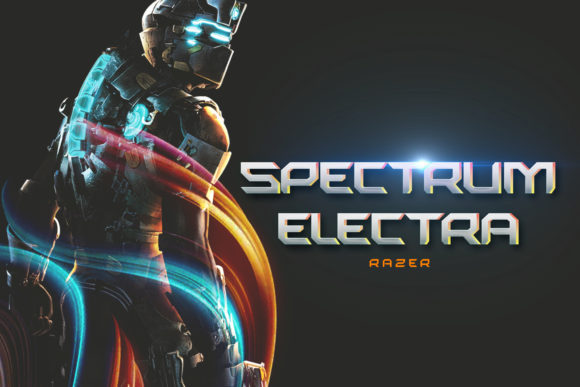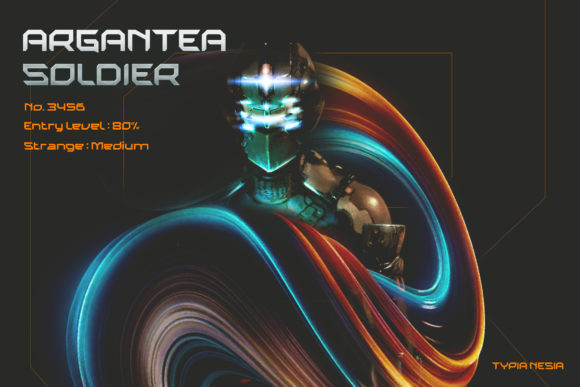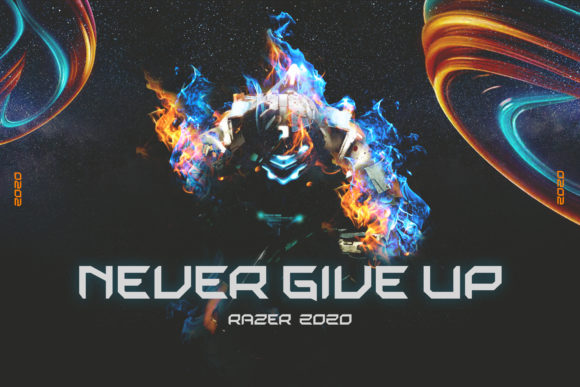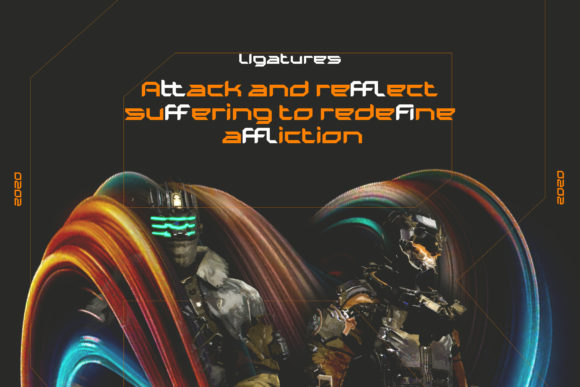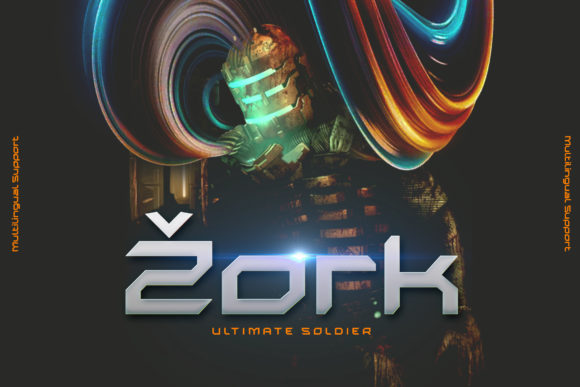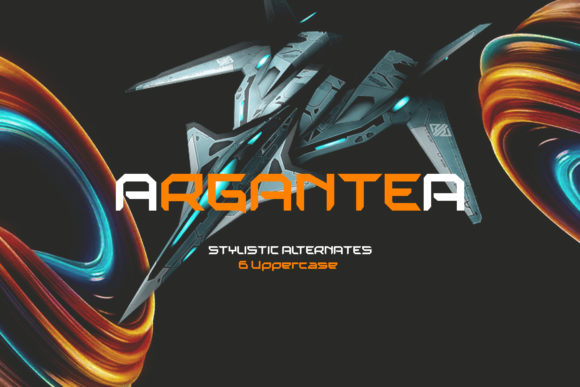
Introduction to Razer Font
Have you ever found yourself staring at a blank canvas, trying to bring your creative ideas to life? The spark of inspiration hits, and suddenly, you’re flooded with possibilities. But then, the daunting task of choosing the right font to match your vision sets in. That’s where the Razer Font comes in – a bold and authentic display font that’s sure to elevate your creative project and make it stand out.
The Razer Font is more than just a design resource – it’s a game-changer for designers who want to add an extra layer of sophistication and uniqueness to their work. With its eclectic brilliance and abstract shapes, this font is perfect for those who dare to be different. Whether you’re working on a personal project or a commercial design, the Razer Font is sure to impress.
Razer Font
- High-quality design resource ideal for creative projects.
- Designed with a unique, futuristic aesthetic, perfect for gaming and tech-related projects.
- Includes a range of characters, including uppercase and lowercase letters, numbers, and punctuation.
- Supports a wide range of languages, making it a versatile design resource.
Honest Review: Razer Font
I recently came across the Razer Font and was excited to dive in and see what it had to offer. As a designer, I’m always on the lookout for high-quality design resources to elevate my creative projects.
- Modern aesthetic
One potential limitation of the Razer Font is its limited character set. ⚠️ While the font is great for body text, it may not be the best choice for titles or headings that require a more extensive character set.
Overall, I was impressed with the Razer Font and would recommend it to designers looking for a high-quality, modern font for their creative projects.
Razer Font
The Razer Font is a free download and a valuable design resource for any creative project. It’s a high-quality font that offers a sleek and modern aesthetic, making it perfect for a variety of applications.
Tips for Getting the Most Out of Razer Font
To get the most out of the Razer Font, make sure to:
– Use it on a transparent background to achieve a clean and modern look.
– Experiment with different font sizes and styles to create visual interest.
– Pair it with other high-quality design elements to create a cohesive look.
The Razer Font is commonly used for:
– Gaming and tech-related projects.
– Modern and sleek branding.
– Creative and innovative marketing campaigns.